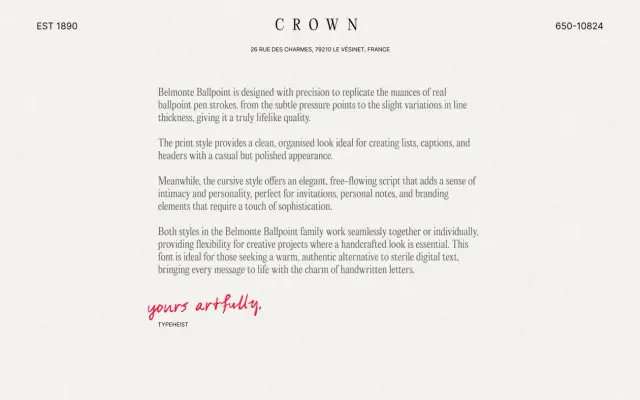
Belmonte Ballpoint
A dual-style handwriting family designed to replicate the texture and imperfection of ballpoint pen ink, available in both print and cursive cuts.
Two complementary styles, print and cursive, simulate the organic irregularities of writing with a ballpoint pen. The family includes three alternate sets of A-Z and 0-9 characters alongside an extended Latin character set for multilingual use. A set of 25 scribble glyphs, mapped to keyboard shortcuts, extends the family into annotation and mark-up territory.
Designed to replicate the appearance of ballpoint pen handwriting, with both print and cursive styles that mimic the texture and imperfections of ink on paper, placing it firmly in the handwritten script category.